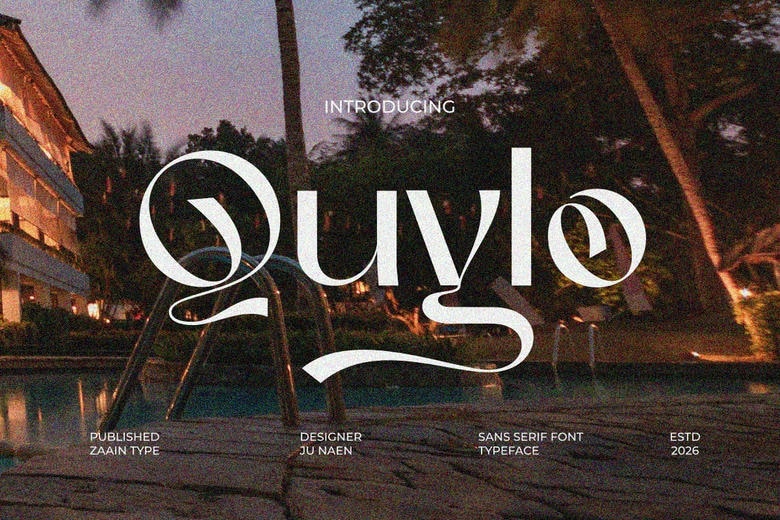
Quylo Font
Quylo is a contemporary sans serif font, which combines simplicity and a hint of originality. Quylo is built with clean lines and balanced proportions giving it a fresh, minimalist appearance and makes it extremely readable at all sizes. Every letter includes minor details which give a professional and stylish impression, that is why it is used in branding, edition, and digital design, as well as a contemporary product presentation.
Quylo will assist in creating a powerful visual identity without seeming overdone due to its graceful modern tactile sensation. It is an ideal typeface to use in a project where the main focus is on the clarity and modern design, as well as a high-quality appearance, so it can be recommended to designers who are seeking to produce clean and unique designs.
Quylo Sans Serif Font